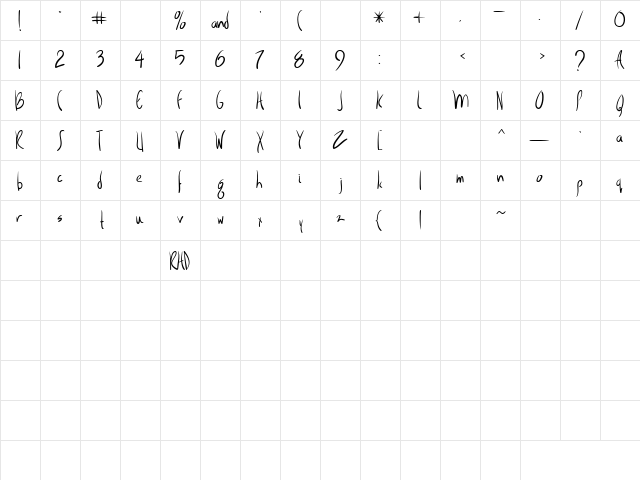
Stingray Lite Regular
Design Context for Stingray Lite Typeface
Stingray Lite is a composed and adaptable typeface that performs quietly and consistently across a wide range of design contexts.